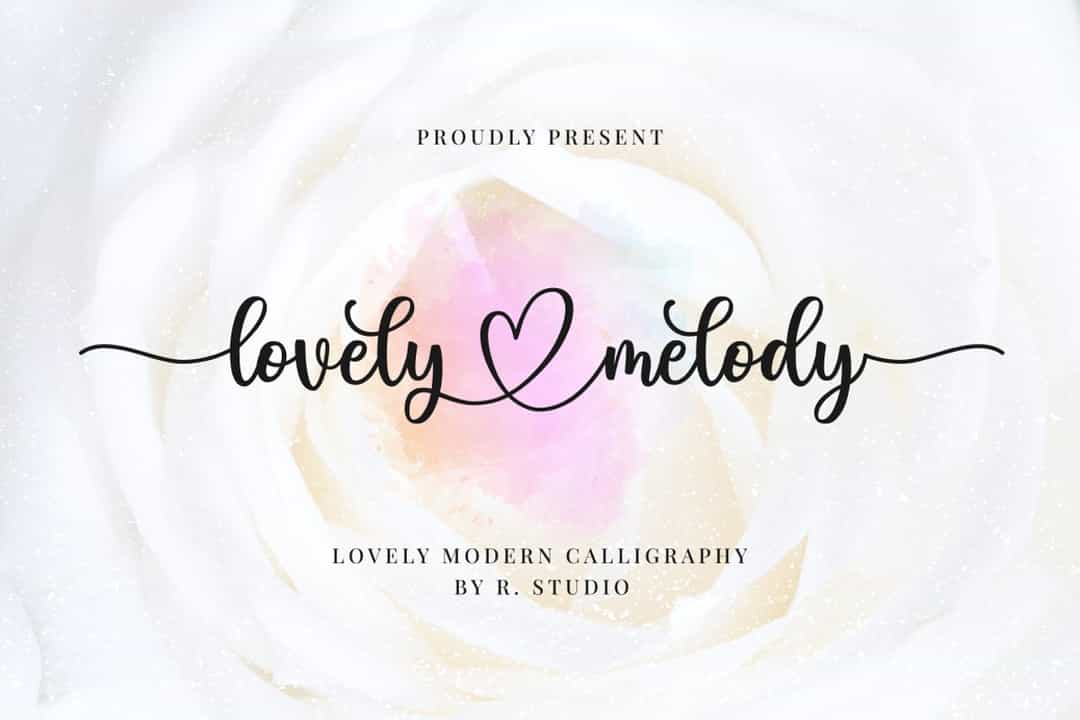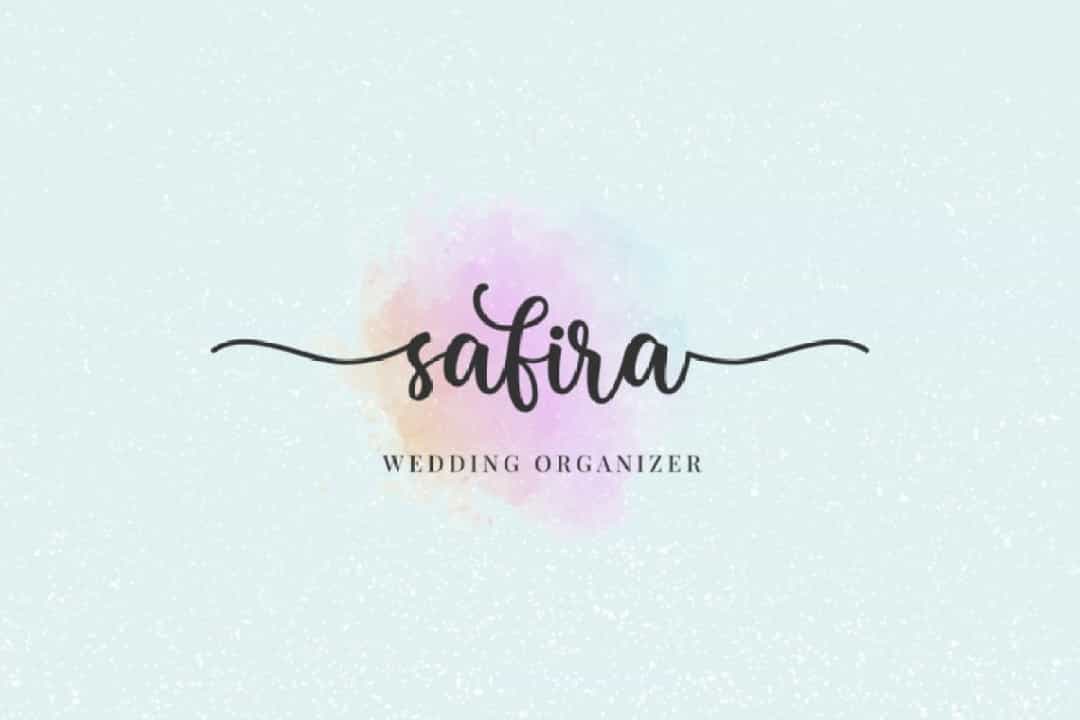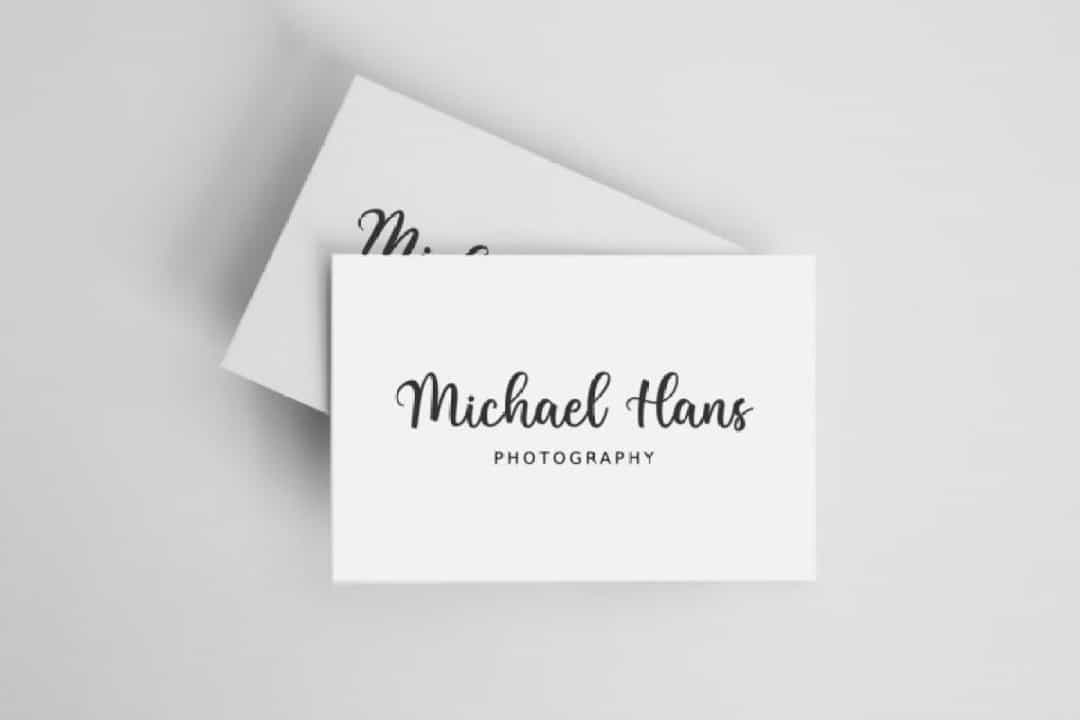
Lovely, is a beautiful and a contemporary calligraphic font created by RStudio font designer, which comes with beautiful swashes and ligatures that make this font versatile. This font is a beautiful modern calligraphy font with heart shaped characters in the letters perfect for any art project with some romance!